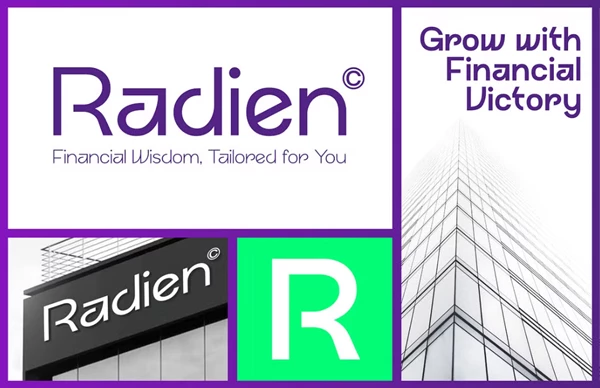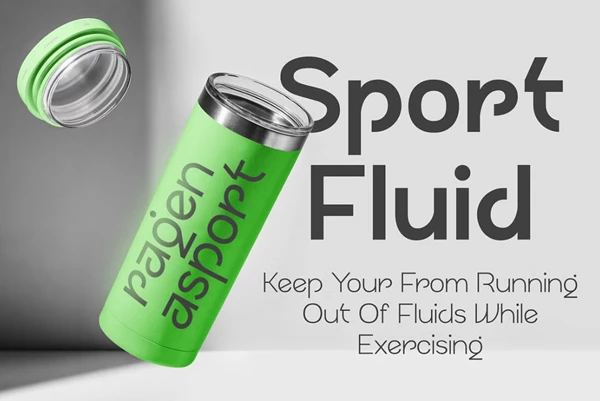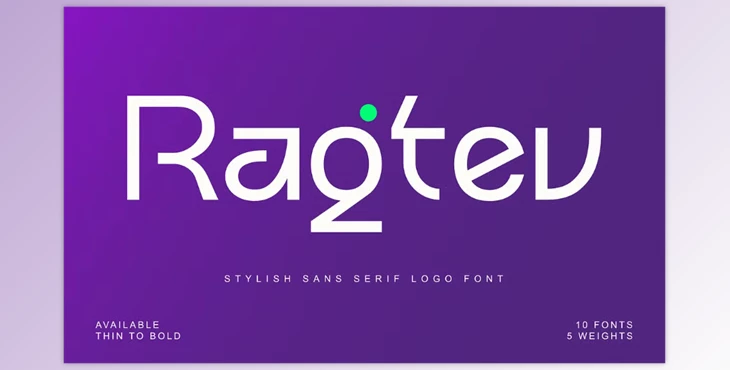
Ragtev - Stylish Sans Serif Logo Font:
Ragtev is a stylish, contemporary font, perfect for any creative project that requires elegance and sophistication, and professionalism is a must. With clean edges and rounded forms, it will look great in logos, branding, packaging, and editorials. It offers a complete range of styles from Thin to Bold, making it easy to create subtle, minimalist designs as well as bold, standout projects. It has a geometric and streamlined approach that projects modern brands and studios with a professional desire to communicate their ideas, often through the need for logos or headlines. With Ragtev, you have everything you need in a logo font in one place.
Some great features of Ragtev - Stylish Sans Serif Logo Font:
- A stylish sans serif, contemporary, eye-catching
- Full weight family from Thin to Bold
- Great for logos, branding, packaging & editorials
- Includes uppercase, lowercase, numbers, and punctuation
- OpenType features